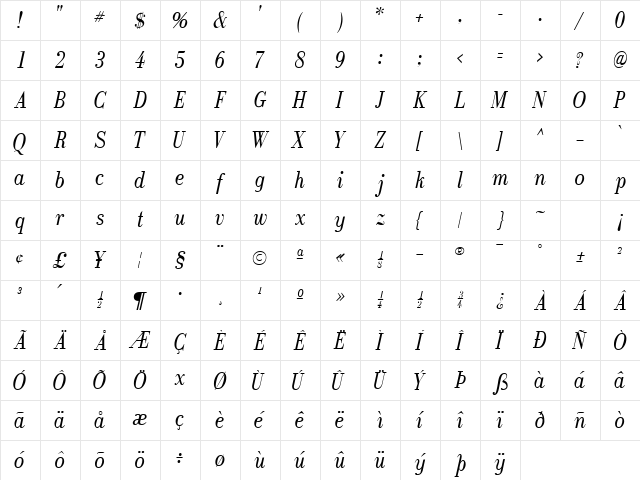
RecitalSSK Italic
Design Context for RecitalSSK
RecitalSSK is a composed and adaptable typeface that performs quietly and consistently across a wide range of design contexts. The slanted form adds forward momentum and visual energy.
Pro Tip: Use RecitalSSK for emphasis, pull quotes, and subheadings where its slanted energy can add rhythm to the layout.